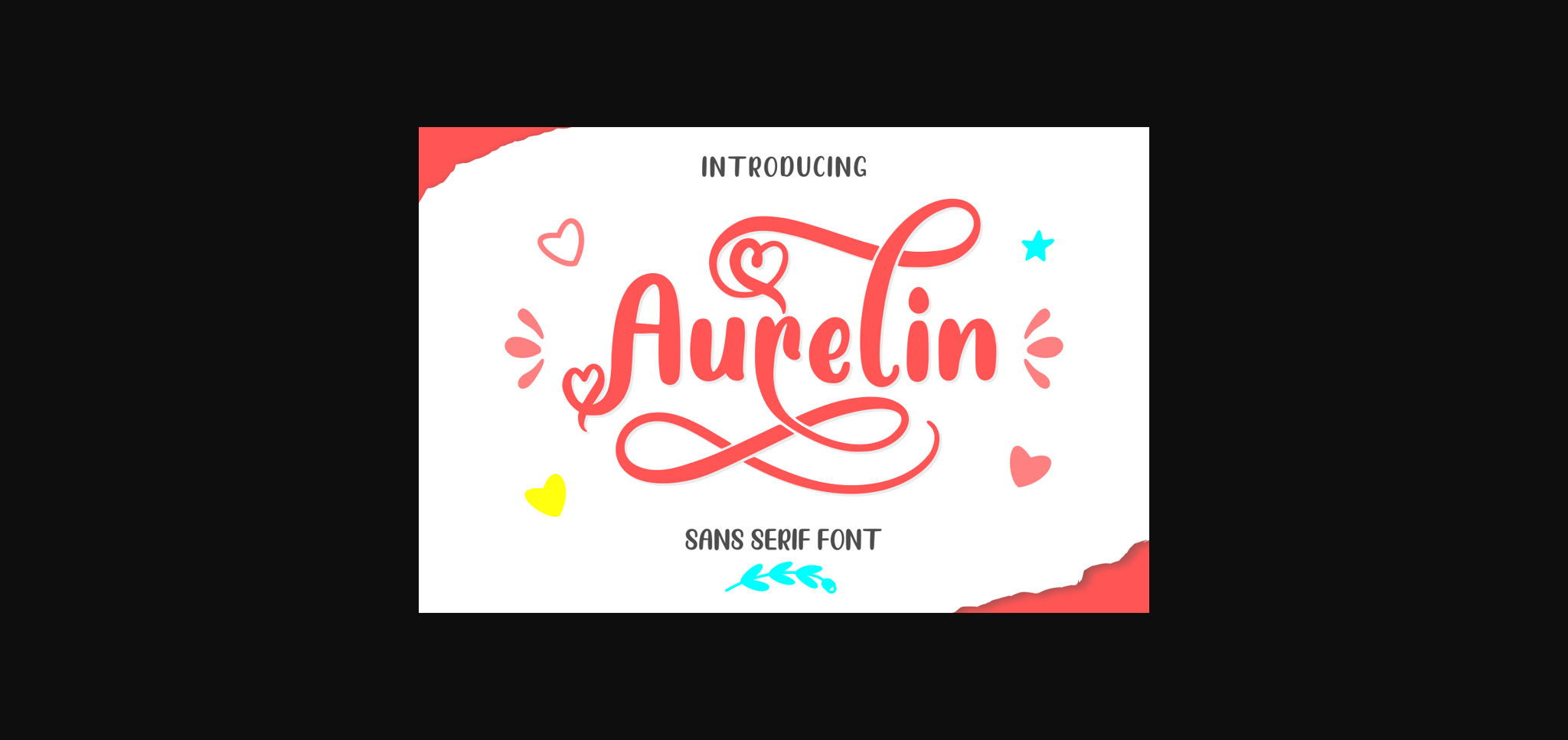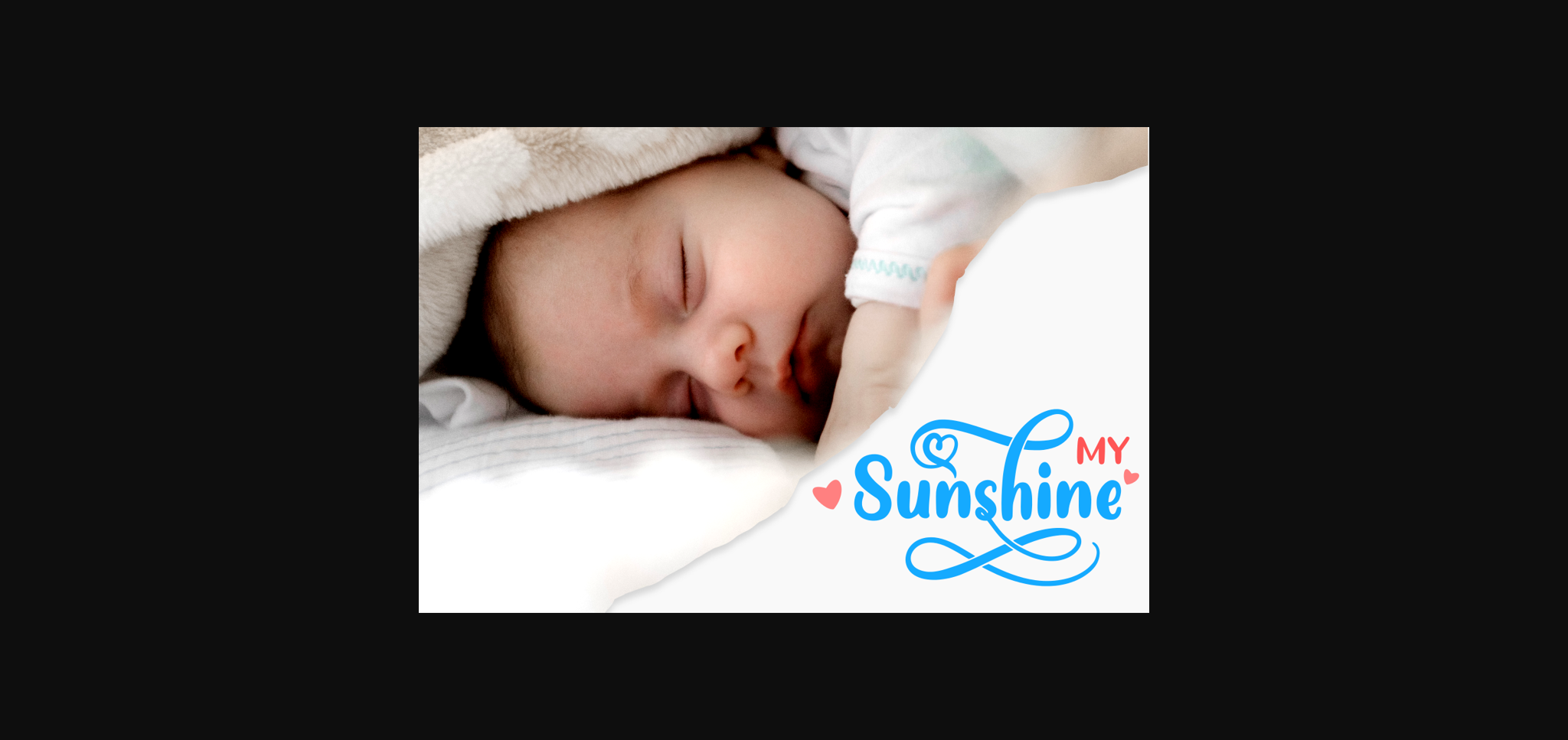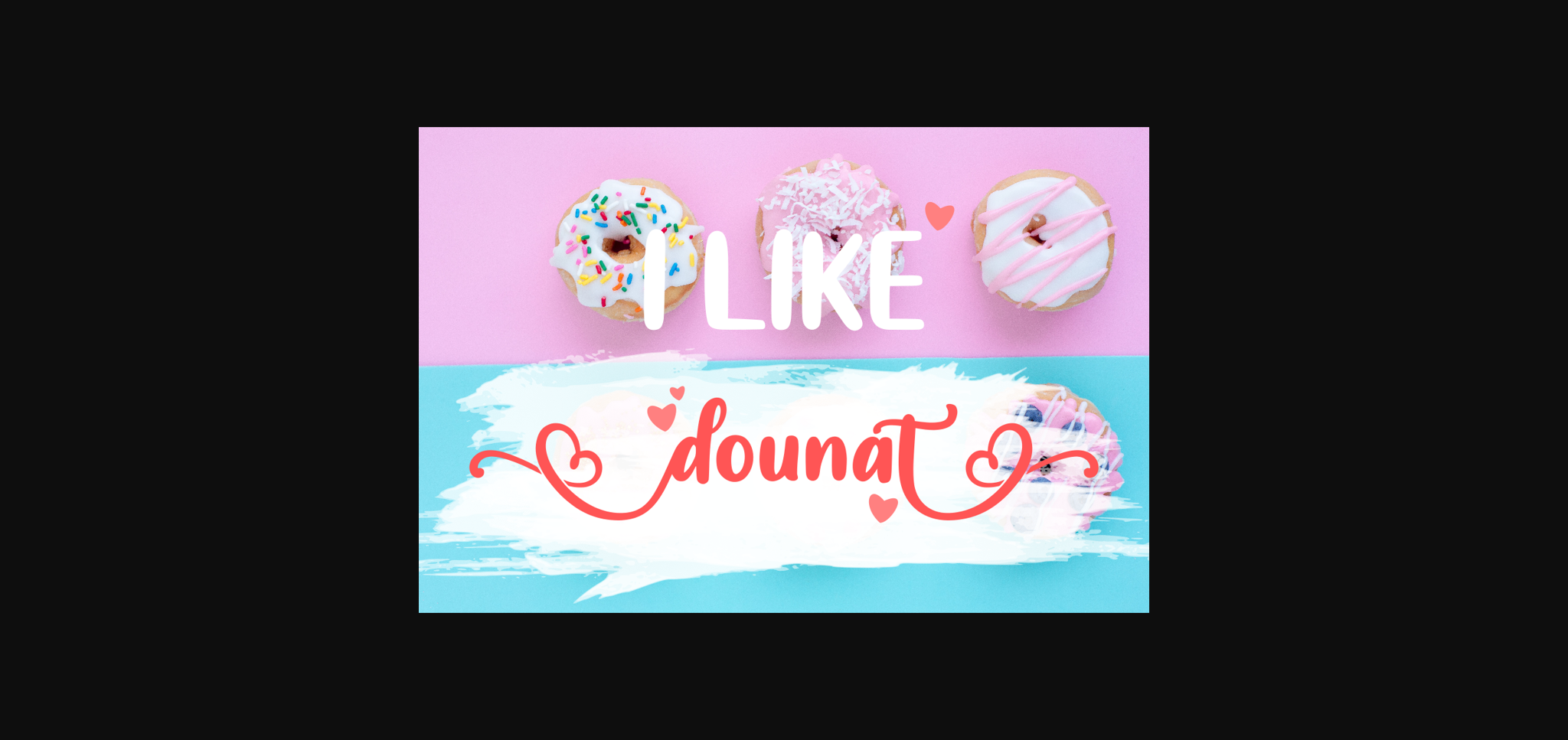
About Aurelin Font
Aurelin is a sweet, soft hand-lettered handwritten font. The playful rounded characters make it the perfect font for creating stunning nursery art. Aurelin comes packed with heart-themed swashes, that will allow you to add a decorative touch within seconds. Get inspired by its authentic feel and use it to create gorgeous wedding invitations, beautiful stationary art, eye-catching social media posts, and cute greeting cards.